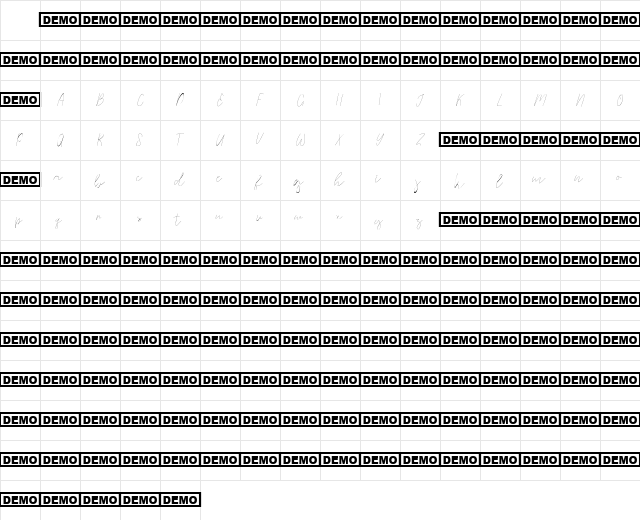
Complete Warm Memories Light Regular glyph index. Displaying only characters natively supported by Warm Memories Light Regular font.
Warm Memories Light is a composed and adaptable typeface that performs quietly and consistently across a wide range of design contexts. Its slender proportions lend an understated elegance to any composition.